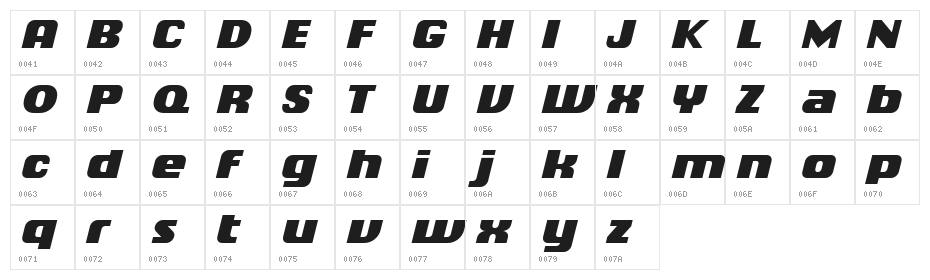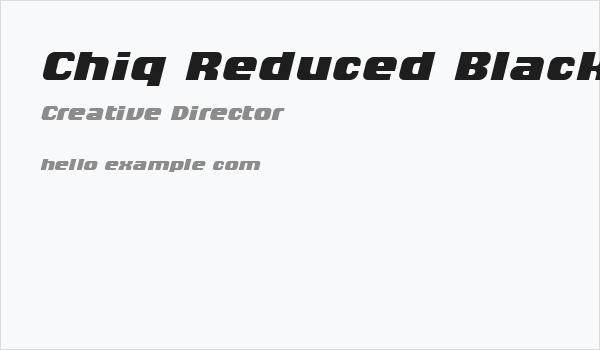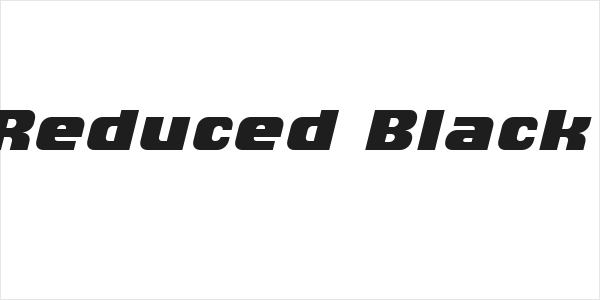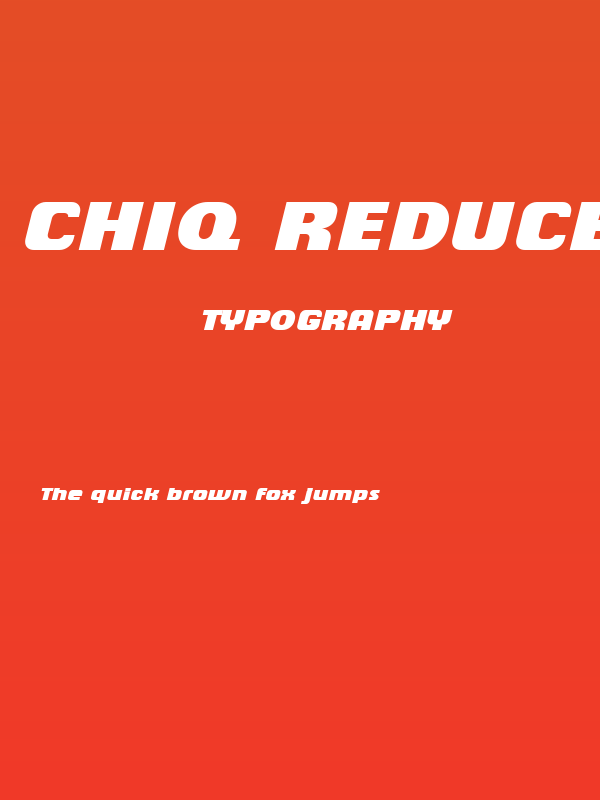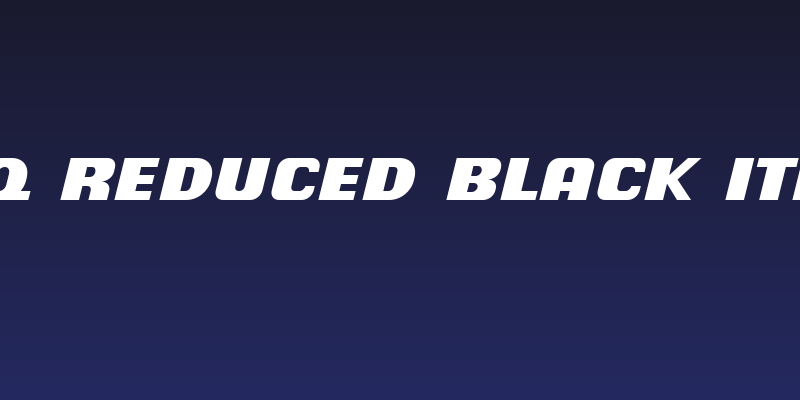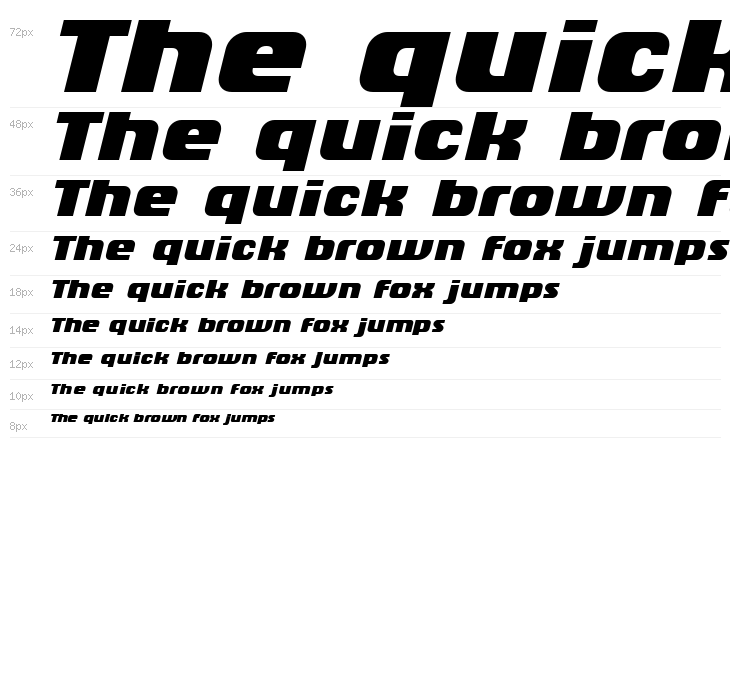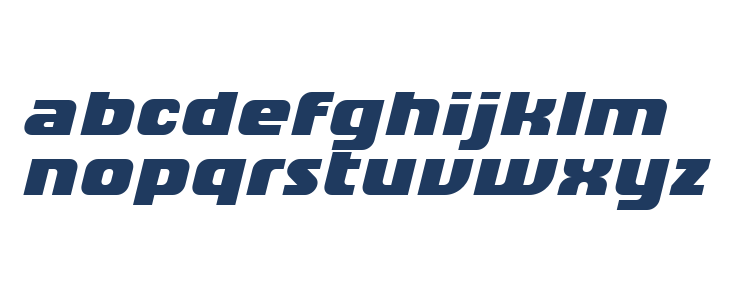
Chiq Reduced Black Italic Font
Chiq Reduced Black Italic Description
This font features a bold and dynamic style with a strong italic slant, creating a sense of movement and energy. The characters are thick and robust, with a modern, geometric design that emphasizes clarity and impact. The uppercase and lowercase letters maintain a consistent weight, providing a cohesive look across the alphabet. The numbers and special characters are designed to match the boldness and style of the letters, ensuring uniformity throughout. The font's overall appearance is sleek and contemporary, making it suitable for projects that require a strong visual presence.
| Proposed Projects | Ideal for branding, advertising, headlines, and any project needing a bold, modern aesthetic. |